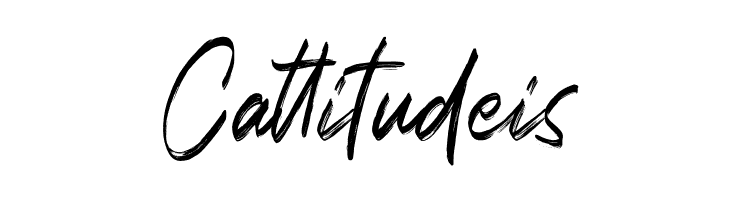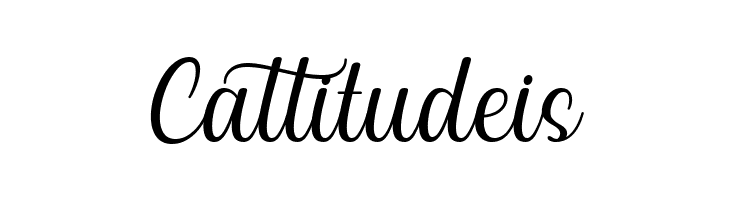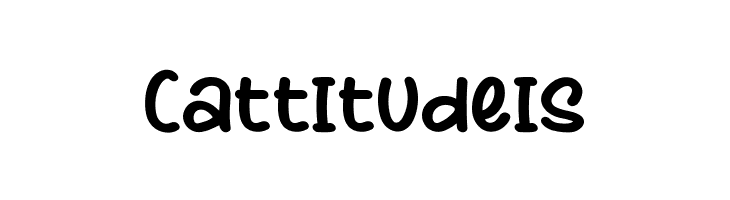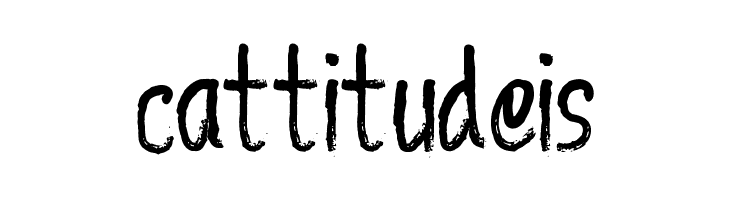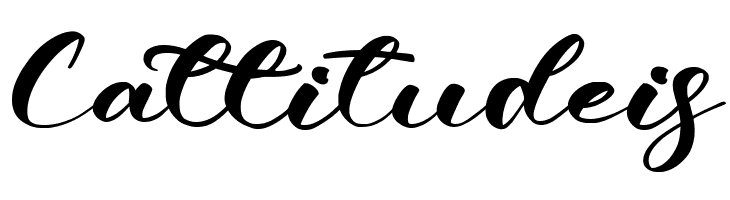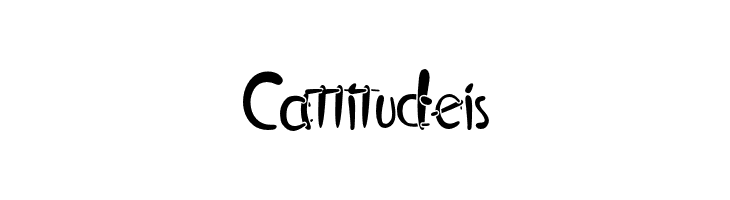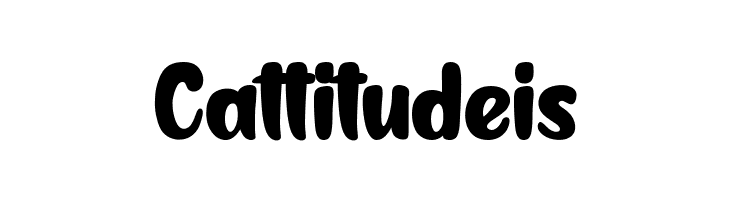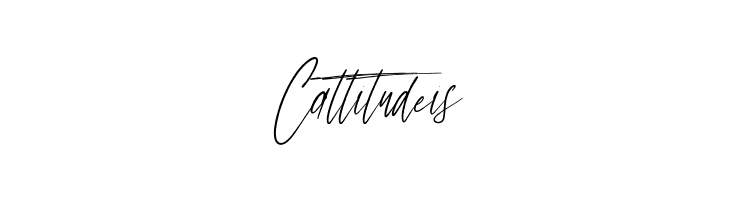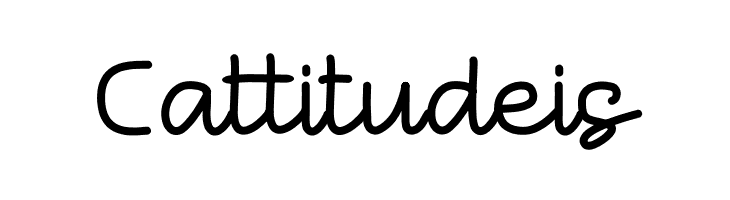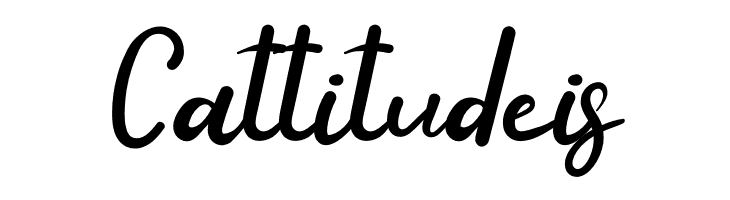
• Ants Valley - Personal Use
An elegant and flowing script font with intricate swashes and decorative flourishes.
• Anttalla
A graceful script font with flowing, interconnected characters and elegant flourishes.
• Anttariksa
A dynamic and expressive handwritten font with fluid, energetic strokes.
• Anttashalam Regular
A playful, cursive handwritten font with smooth, rounded edges.
• Anttine
A flowing, cursive script with elegant loops and swashes.
• Anttisol
A dynamic and expressive script font with fluid strokes and elegant curves.
• AnuDaw
A bold, hand-drawn font with an energetic and dynamic style.
• AnuDaw Italic
A bold, italic brush script font with dynamic strokes and a hand-painted look.
• Anugrah
A playful, handwritten-style font with rounded edges and uniform strokes.
• Anugrah
A playful, handwritten-style font with rounded edges and consistent stroke width.
• Anxient
A whimsical and decorative font with playful circular embellishments.
• anxiety
A modern, geometric outlined font with layered lines for a striking visual effect.
• Anxiety Demo
A dynamic, expressive handwritten font with elongated, flowing letterforms.
• Anxiety Management
A bold, energetic handwritten font with playful and expressive strokes.
• Anxiety Regular
• Any Takers Regular